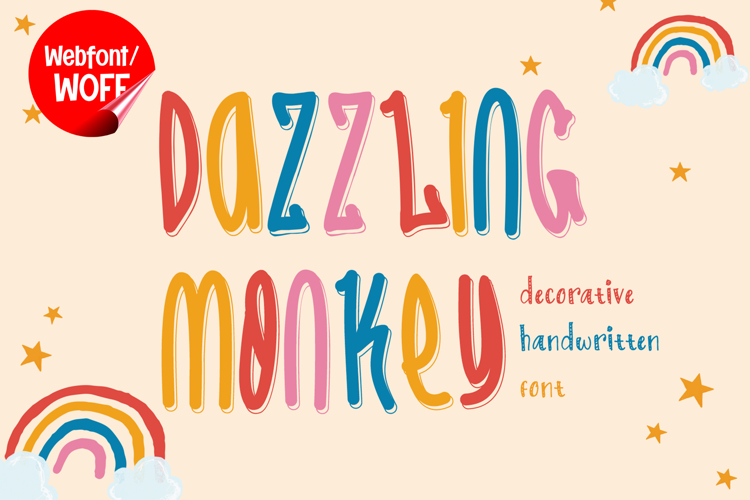
Dazzling Monkey | Cute Display Webfont for Playful Websites
Dazzling Monkey is a cute display webfont designed to bring a fun, cheerful, and energetic vibe into modern website design. With its rounded shapes and lively character, this font creates an inviting and friendly visual style that instantly captures attention. It is an excellent choice for projects that aim to deliver a playful and engaging user experience.
Dazzling Monkey includes a complete set of uppercase characters designed with soft curves and playful proportions. The letterforms are bold yet friendly, making them ideal for headlines, banners, hero sections, and featured content where a cute and eye-catching style is needed. The balanced shapes help create a strong visual hierarchy while maintaining a lighthearted tone.
In addition to letters, the font includes numbers and punctuation, allowing flexible usage across various parts of a website. It works well for product promotions, event announcements, children’s content, and call-to-action sections. Each character maintains a consistent cute style, ensuring a cohesive and unified visual identity throughout the layout.
With multilingual support, Dazzling Monkey includes a wide range of accented characters, making it suitable for international websites and global audiences. This allows content to be displayed clearly across different languages while preserving the playful aesthetic.
The cute display style of Dazzling Monkey makes it especially suitable for kids’ websites, educational platforms, toy brands, creative portfolios, and fun marketing campaigns. Its lively and expressive design adds personality and charm, helping websites feel more approachable and engaging. The friendly look also supports branding that focuses on creativity and positivity.
Despite its playful and decorative appearance, Dazzling Monkey is designed with readability in mind. The spacing and proportions are carefully balanced to ensure clarity, particularly in display sizes. This makes it effective for impactful headings and short content elements where both style and usability are important.
Dazzling Monkey is a webfont that combines cute design with modern digital performance. Its rounded forms, cheerful character, and engaging style create a distinctive typographic presence that enhances website design. For projects that require a fun, friendly, and visually appealing font, Dazzling Monkey offers a delightful and effective solution.